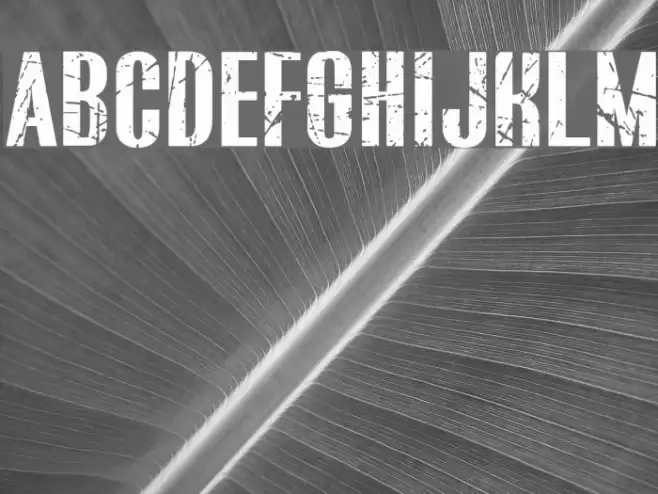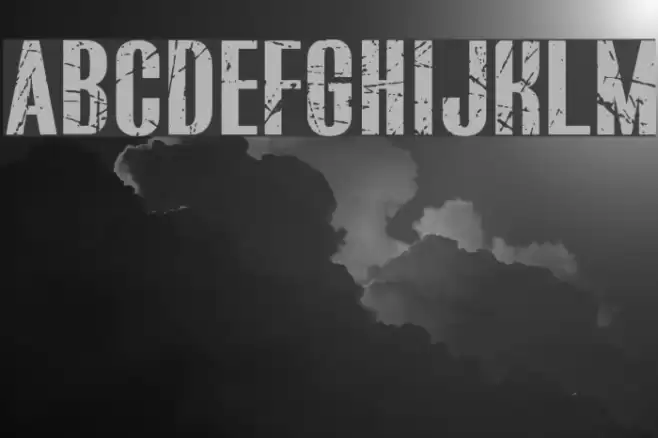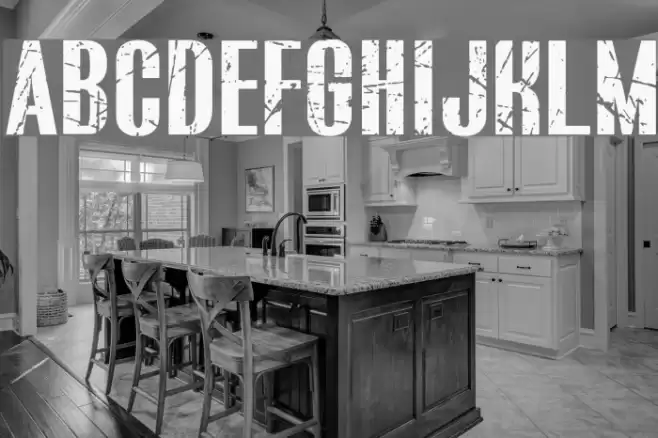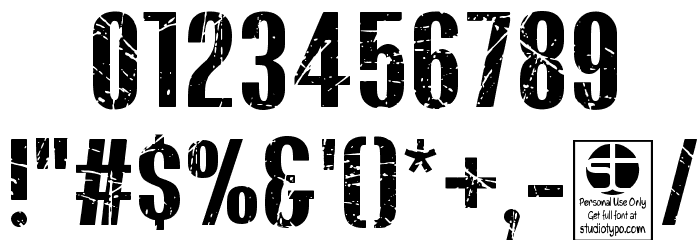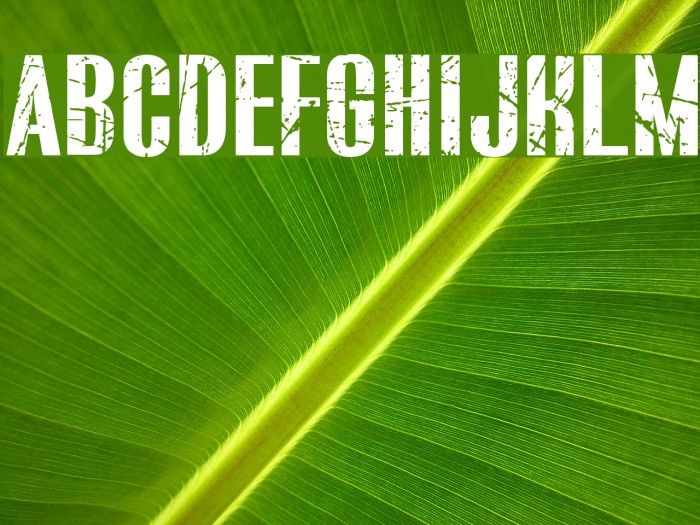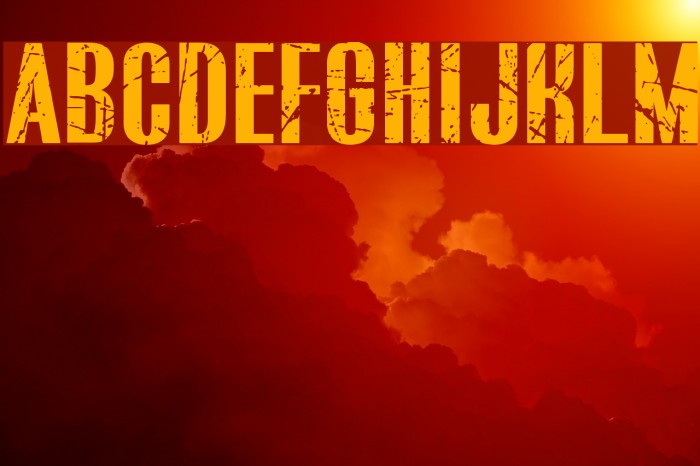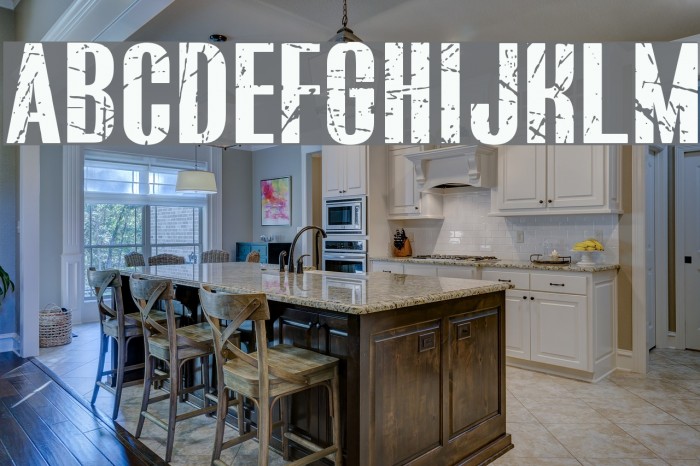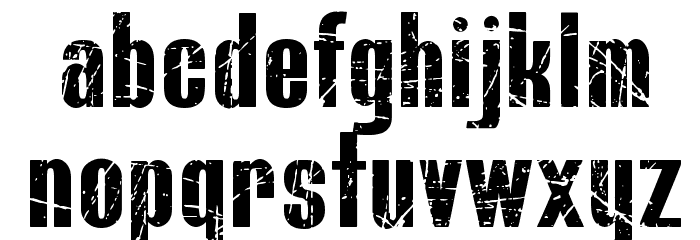
BLUEFISH SCRATCHED Demo Font
BLUEFISH SCRATCHED Demo Description
This font features a bold, distressed style with a scratched texture that gives it a rugged, worn appearance. The uppercase and lowercase letters maintain a consistent thickness, while the numbers and special characters share the same distressed aesthetic. The font's design is reminiscent of vintage or industrial themes, making it ideal for projects that require a bold, eye-catching look. The characters are tightly spaced, enhancing the compact and impactful nature of the font. The high contrast between the thick strokes and the distressed areas adds to its visual interest, making it suitable for creative and artistic applications.
A bold, distressed font with a scratched, vintage appearance from Uncategorized fonts.
- Proposed Projects: Ideal for posters, album covers, branding, and any design needing a rugged, vintage feel.
- Character Spacing: Tight
- Overall Style: Vintage